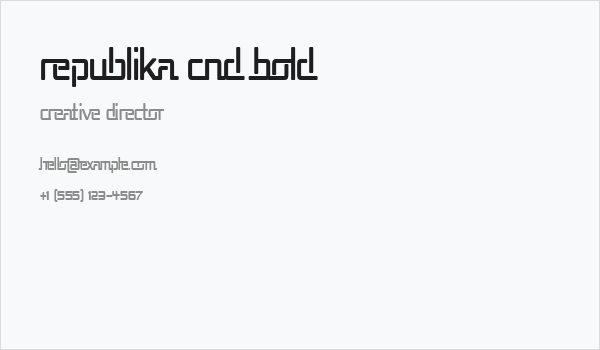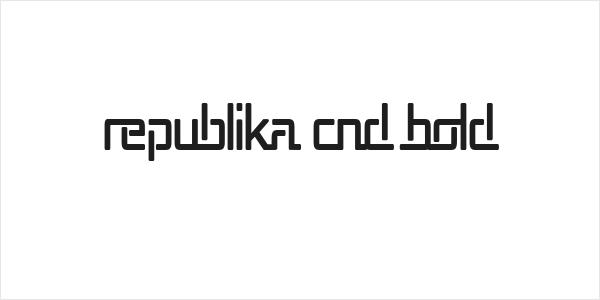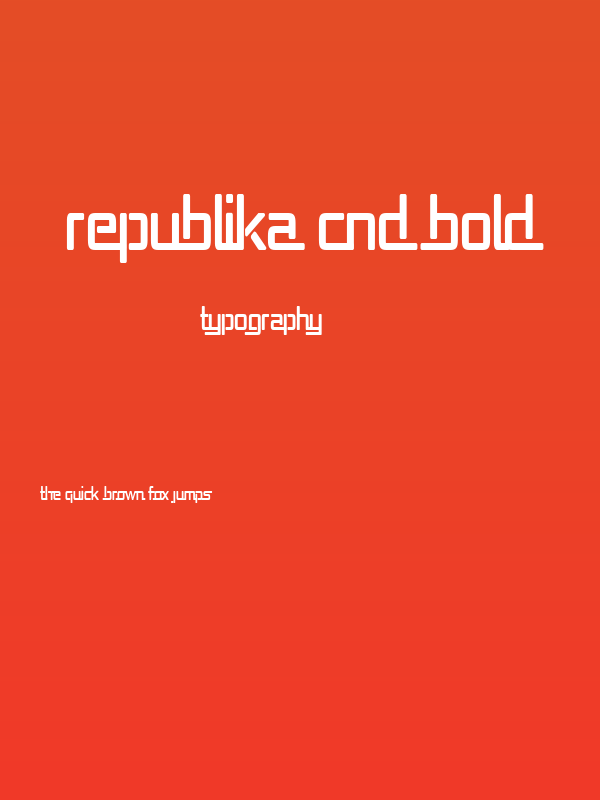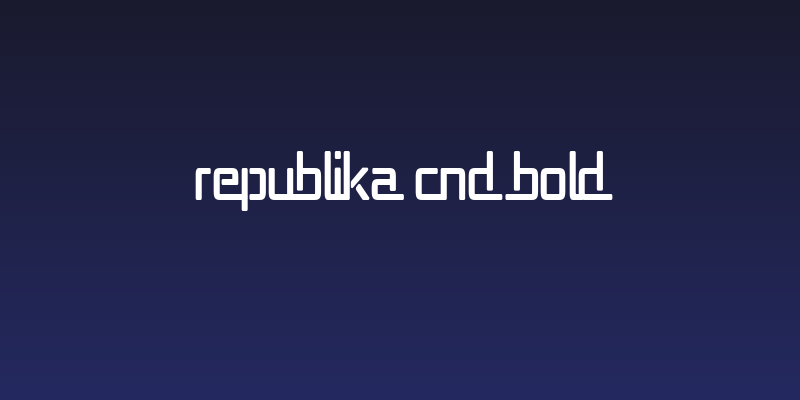
Republika Cnd Bold Font
Republika Cnd Bold Description
This font features a bold and condensed style with a modern, geometric aesthetic. The characters are constructed with uniform stroke widths, giving it a monospaced appearance, although it is not strictly monospaced. The design is clean and minimalistic, with a futuristic touch, making it suitable for contemporary digital applications. The uppercase and lowercase letters maintain a consistent height, enhancing readability. The numerals and special characters are designed to match the overall geometric theme, ensuring a cohesive look across all text elements.
| Use Case | Headlines, Logos, Digital interfaces |
| Proposed Projects | Ideal for digital interfaces, tech branding, futuristic posters, and modern web design. |